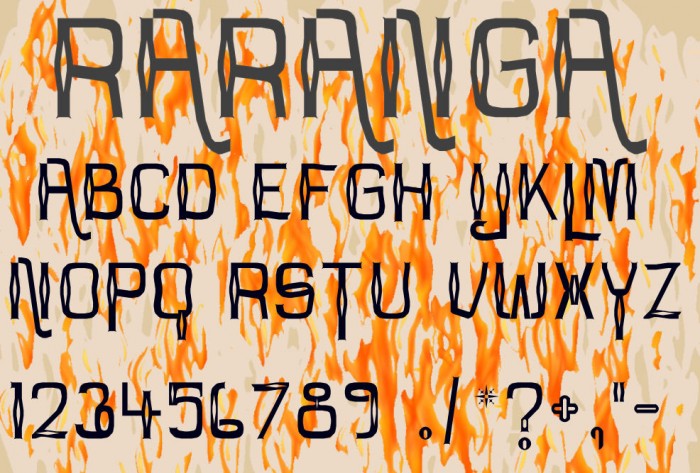
Inspired by trying to thread heddles on a 4-shafter .........
The design uses a lot of nudging, a little stacking and composites, using some of the exciting extended capabilities of the FontStructor.
The font's name is Maori and means "weaving".
This font is as finished as I need to have it at the moment. I'll add a few more glyphs later.
One of your finest creations with stunning FS technique.
Love it!
Meek, thank you for this new TP --- and for the new FontStructor :) Without it this font's curved slots alone would have required about 28 px height for just one of the eyelet slopes to get the effect I wanted.
@ architaraz & laynecom: thank you for your praise, it means a lot as you both belong to the established skilled true designers here :)
Nice work. I like the way some letters - all capitals - venture into descender territory. Occasionally, there is partial overlap between the "L" and "J", or between the "L" and "Y", however. I would consider having a shorter "L" as alternate for such situations. Congratulations for the Top Pick. 10/10
@ Frodo, thank you for appreciation and good observations :) A "LL" is on the LC "L", a shorter "L" on the LC "k", a new tail on the "A" to give a better look when used before LL.
It has a new "J", a few more useful punctuation marks and symbols. It's finished as far as I want to have it, so grab it if you can use it, while it's available ;)
What the .. is this "3" man , it looks sh*t ! but the rest is great !!!
A beautiful, stylish and fluid font. Congrats on the top pick, fully deserved. I do agree with Romain1 about the number 3, though not the way he expresses himself. I also wonder if the upper case M should be rounded at the top right in keeping with other letters. A super font.
@ wicci: thank you. I have changed the top of the M, is this better? @ Romain1 : I improved the "3" you disliked and imagine you'll comment favourably.
0 and O are too similar to eachother could you perhaps put a stroke on the number 0?
@ brynda: the 0 and O are the same because
*start teaching* all heddles on a loom have the same eye or maybe a doubled one *end teaching*
;) A line or stroke barricades the eye's opening and damages threads.
Are you using a loom to create the glyphs, Latgin-1?
Latin-1*
@brynda:one of my hobbies is weaving :) My fonts are in my head, put on paper, then made with FontStruct. I used "weaving imagery" here in my comment :) The Øø is Danish
This is a powerful font. It also turns my stomach. The font is high quality 9/10, and I really dislike it. I would like to give it a -9/10. I wish Fontstruct had a way to rate fonts that are really effective in a way that is disturbing. As it is I can't rate this font. 1/10 does not do it justice. 9/10 means I like it. So -9/10.
It could be a great font for the cover of a horro novel.
@TH3_C0N-MAN: I'm not from New Zealand but have a very dear penfriend there. Hence my fascination with the country, the Māori and their culture, and my A+ for my Art Baccalaureat presentations about art and craft work this fascinating culture has developed over centuries.
I finally found a good "Zero" for Raranga and adjusted the "8" :)
Oh cool. I’m from New Zealand. I didn’t think that people outside the country would be interested in Māori culture and stuff.
It’s pretty easy to make fonts for Te Reo Māori because we only have fourteen letters in the alphabet!
TH3_C0N-MAN tēnā rawa atu koe. One of these days I'll learn a few useful words of te reo. I just finished the Māori letters. Thank you @ zeph, glad you like its quirkyvidualism ;))) Happy festive winter/Yule time to you, too
Adjusted spacing of "A" to spacings on Latin1; and diacritics "I". Thank you @BWM